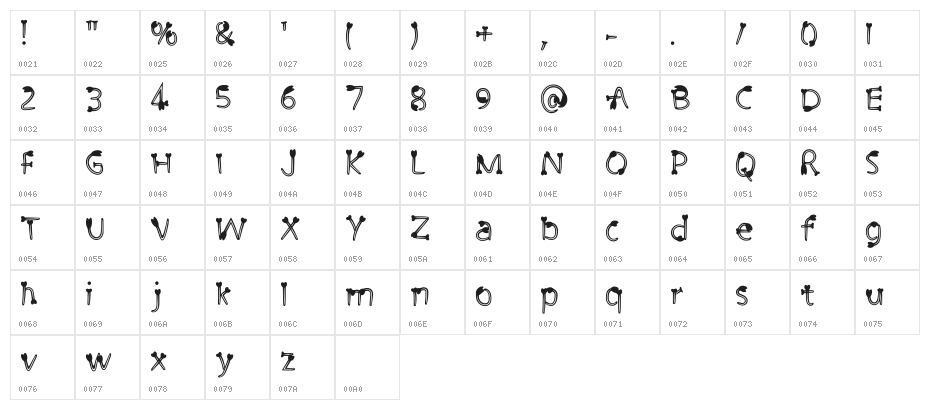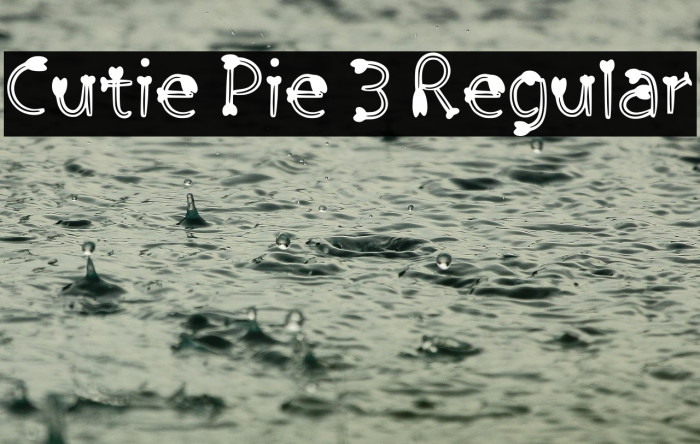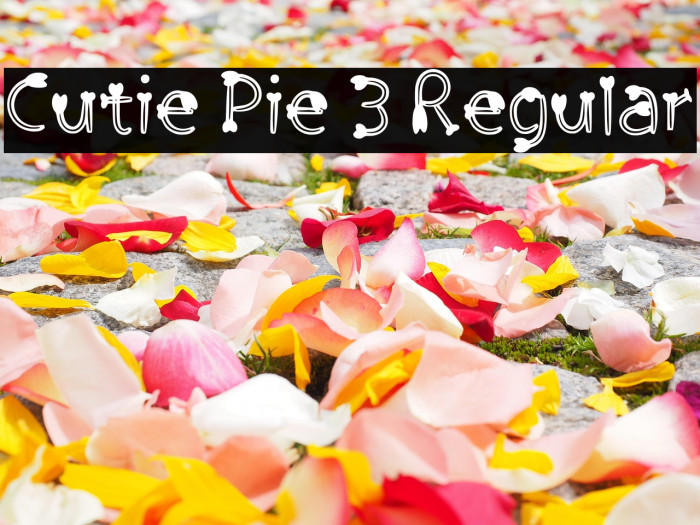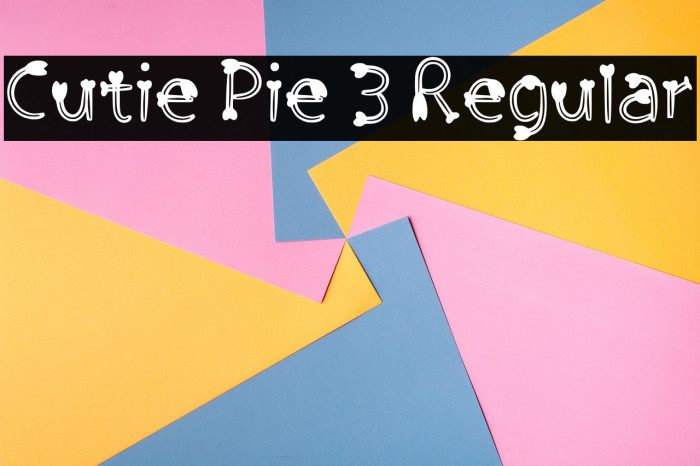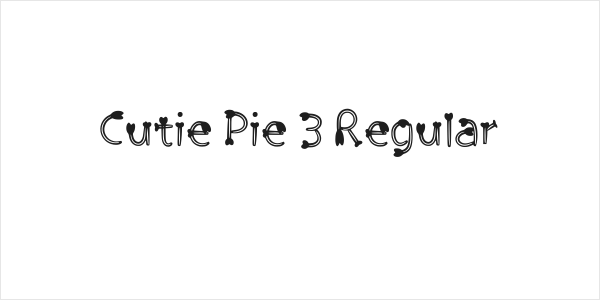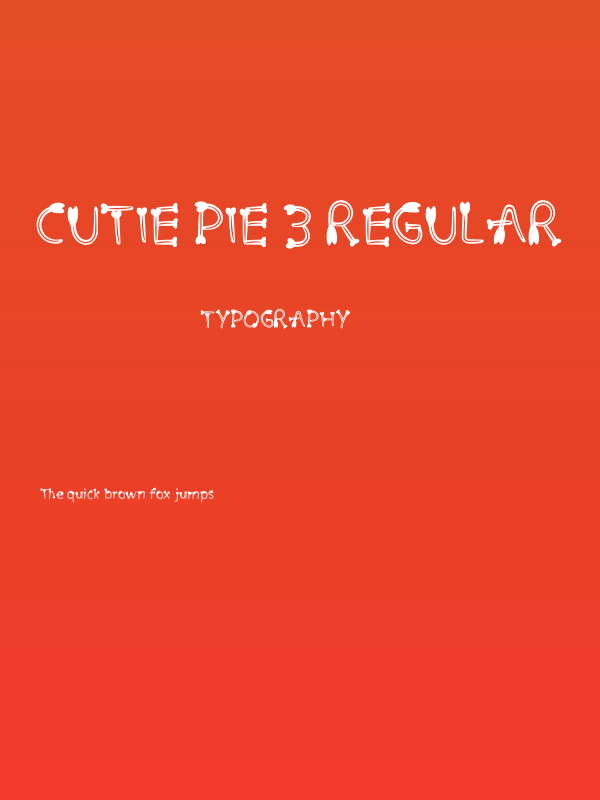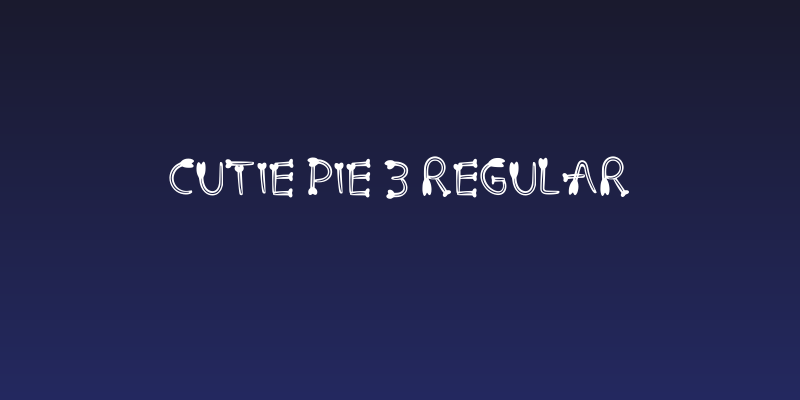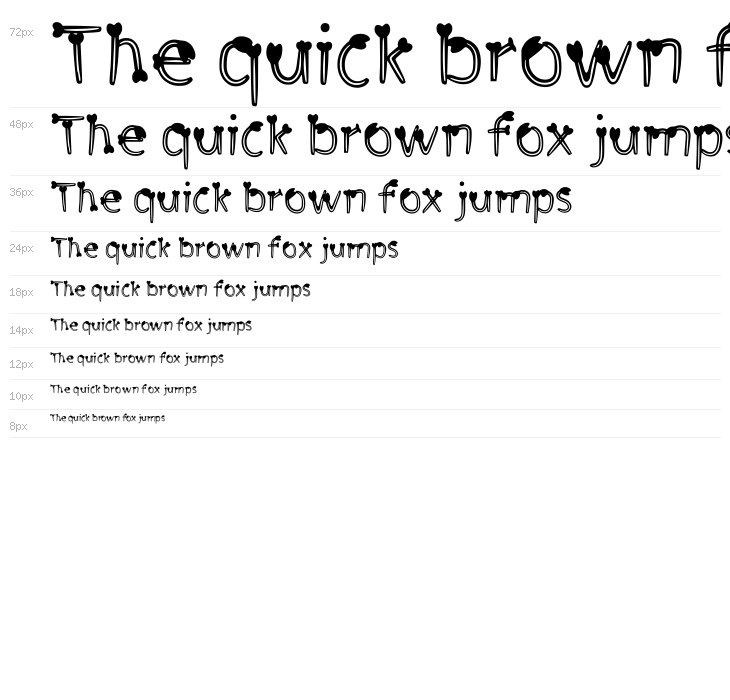
Cutie Pie 3 Regular Font
Cutie Pie 3 Regular Description
This playful and whimsical font features heart-shaped accents on the ends of each stroke, creating a charming and endearing appearance. The characters are bold and rounded, with a consistent thickness that adds to the font's friendly and approachable style. The uppercase and lowercase letters maintain a uniform design, while the numbers and special characters are equally adorned with heart motifs, ensuring a cohesive look throughout. This font is perfect for projects that aim to convey warmth, love, and a touch of fun.
| Overall Style | Whimsical |
| Proposed Projects | Ideal for greeting cards, children's books, playful branding, and Valentine's Day promotions. |